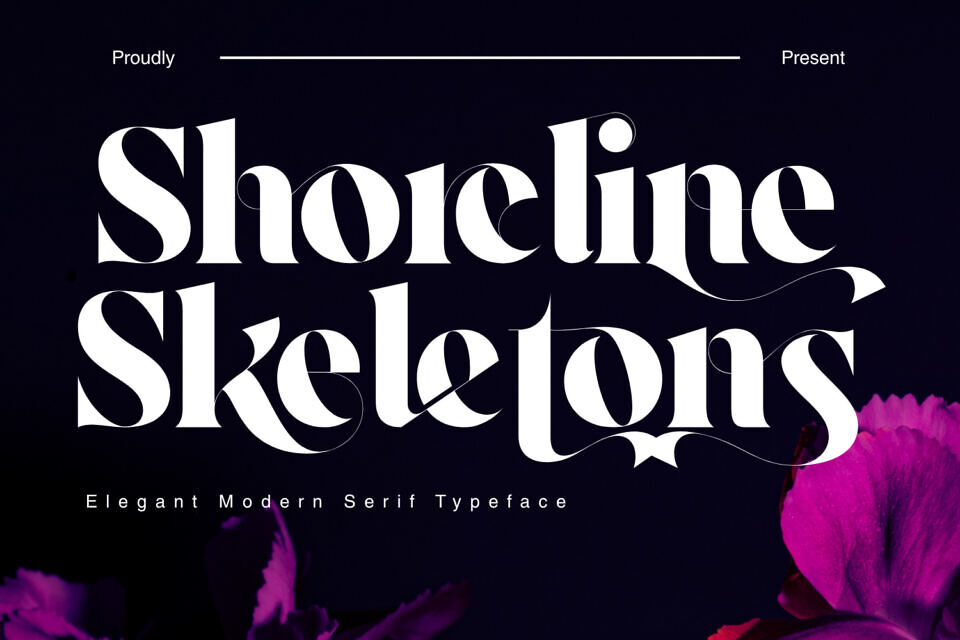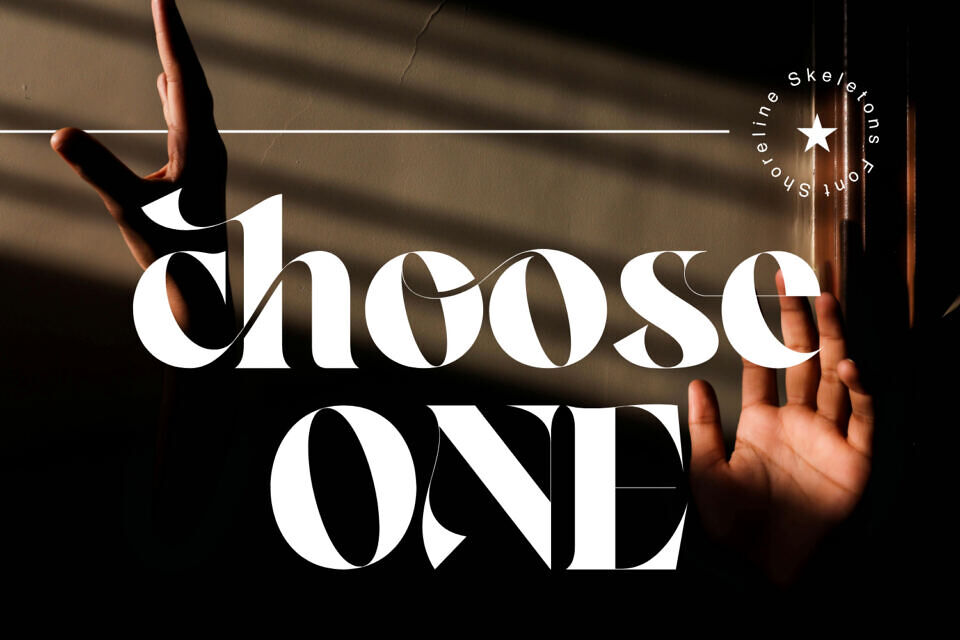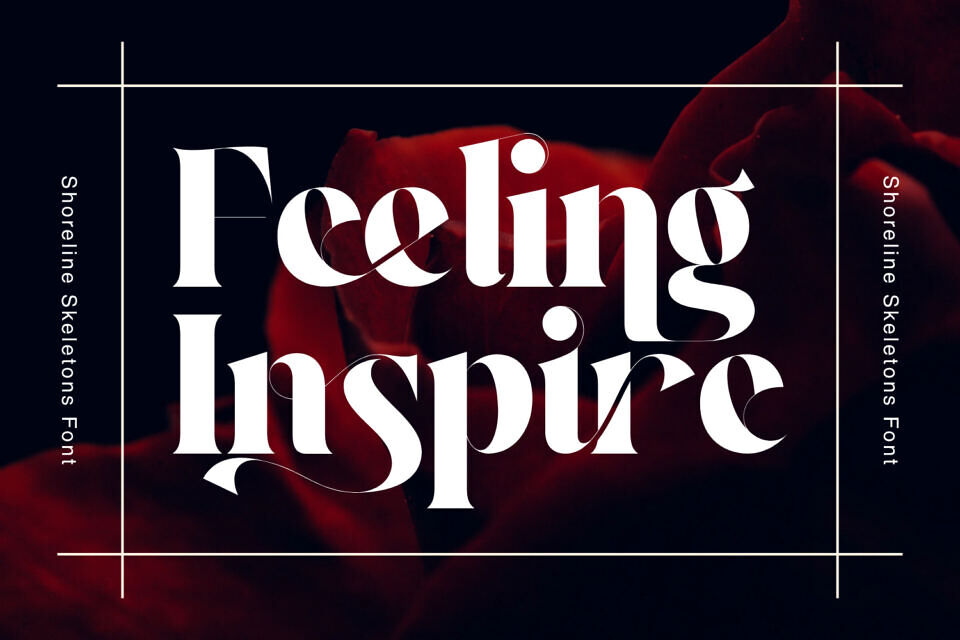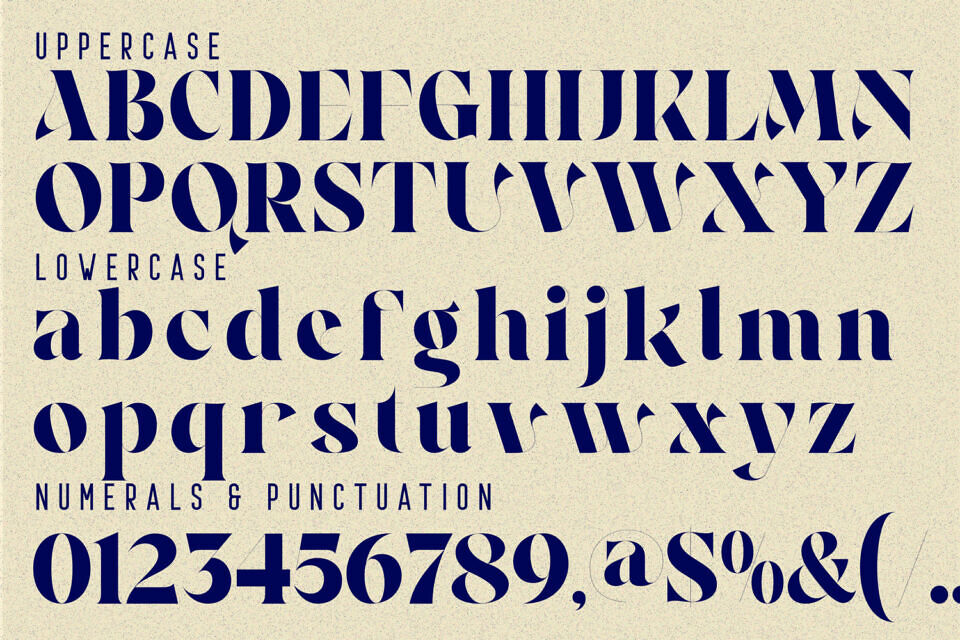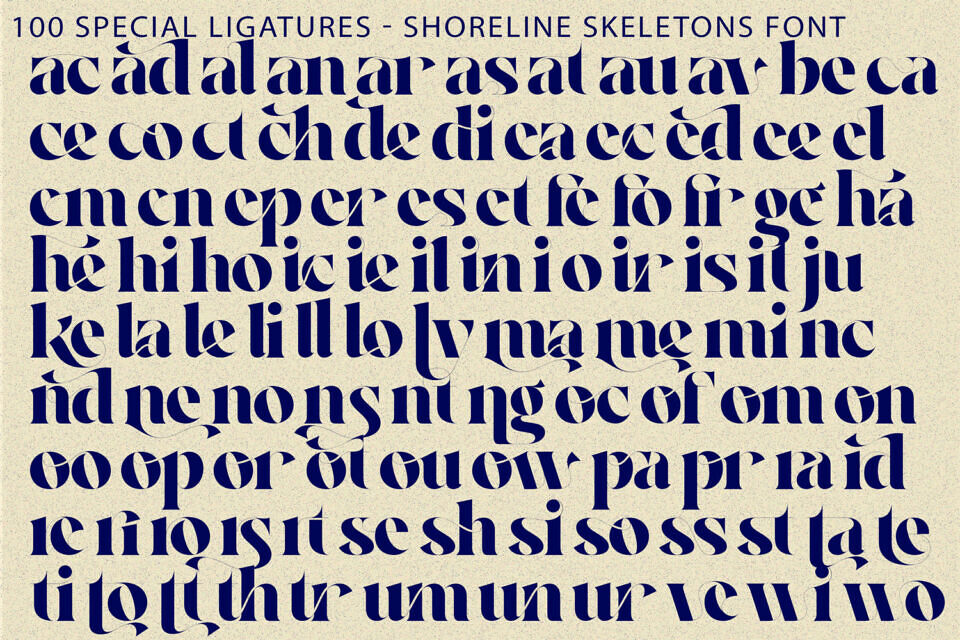
Shoreline Skeletons is a luxury high-contrast serif display font designed with elegant curves, refined proportions, and graceful calligraphic details. Its dramatic thick-to-thin strokes and flowing swashes create a sophisticated visual rhythm that feels both timeless and modern.
With its stylish ligatures and expressive letterforms, Shoreline Skeletons is perfect for fashion branding, editorial headlines, beauty packaging, wedding designs, luxury logos, and premium visual identities.